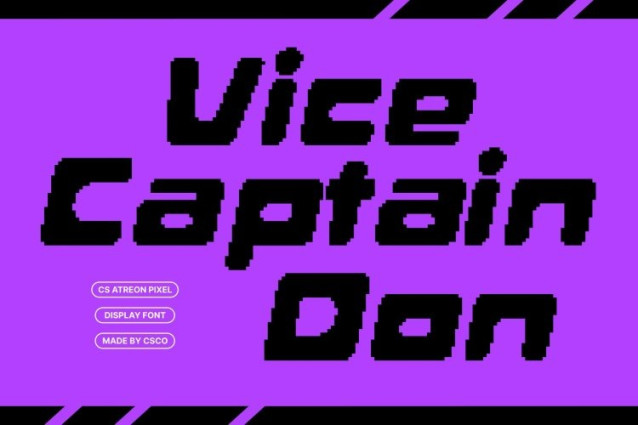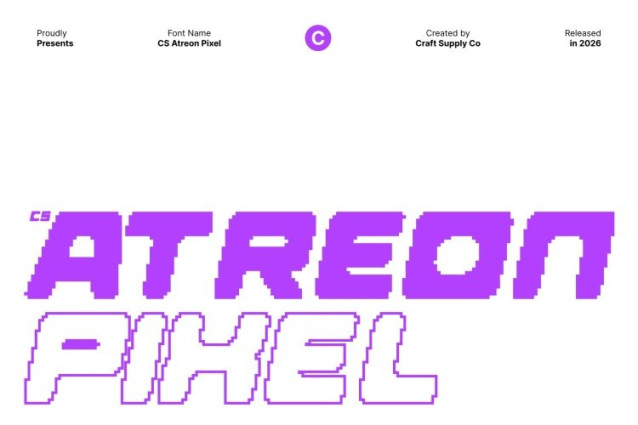
CS Atreon Pixel Font
CS Atreon Pixel Font This is a bold display sans serif font built to make a powerful visual statement. Designed for maximum impact, it combines strong geometric construction with distinctive pixel styling, creating typography that feels futuristic, confident, and unmistakably modern.
Geometric Precision with Futuristic Pixel Style
Each letterform is crafted with sharp geometry and structured proportions, reflecting precision and technological influence. The pixel details introduce a digital texture that enhances its futuristic character, evoking the look of modern interfaces, sci-fi visuals, and retro-futuristic screens. This combination gives the font a clean yet expressive identity rooted in innovation.
Eye-Catching Strength with Clear Readability
This font balances boldness and clarity effortlessly. Its solid forms and clean angles ensure strong readability, while the pixel aesthetic adds visual excitement and personality. This makes it perfect for headlines, posters, titles, and designs that need to stand out instantly.
Perfect for Modern Branding and Digital Visuals
Ideal for futuristic branding, tech projects, digital campaigns, gaming visuals, and contemporary editorial layouts, this font delivers a cutting-edge look with confident energy. Its fusion of bold geometry and pixel precision makes it a powerful choice for designs that aim to express modernity, innovation, and visual authority.